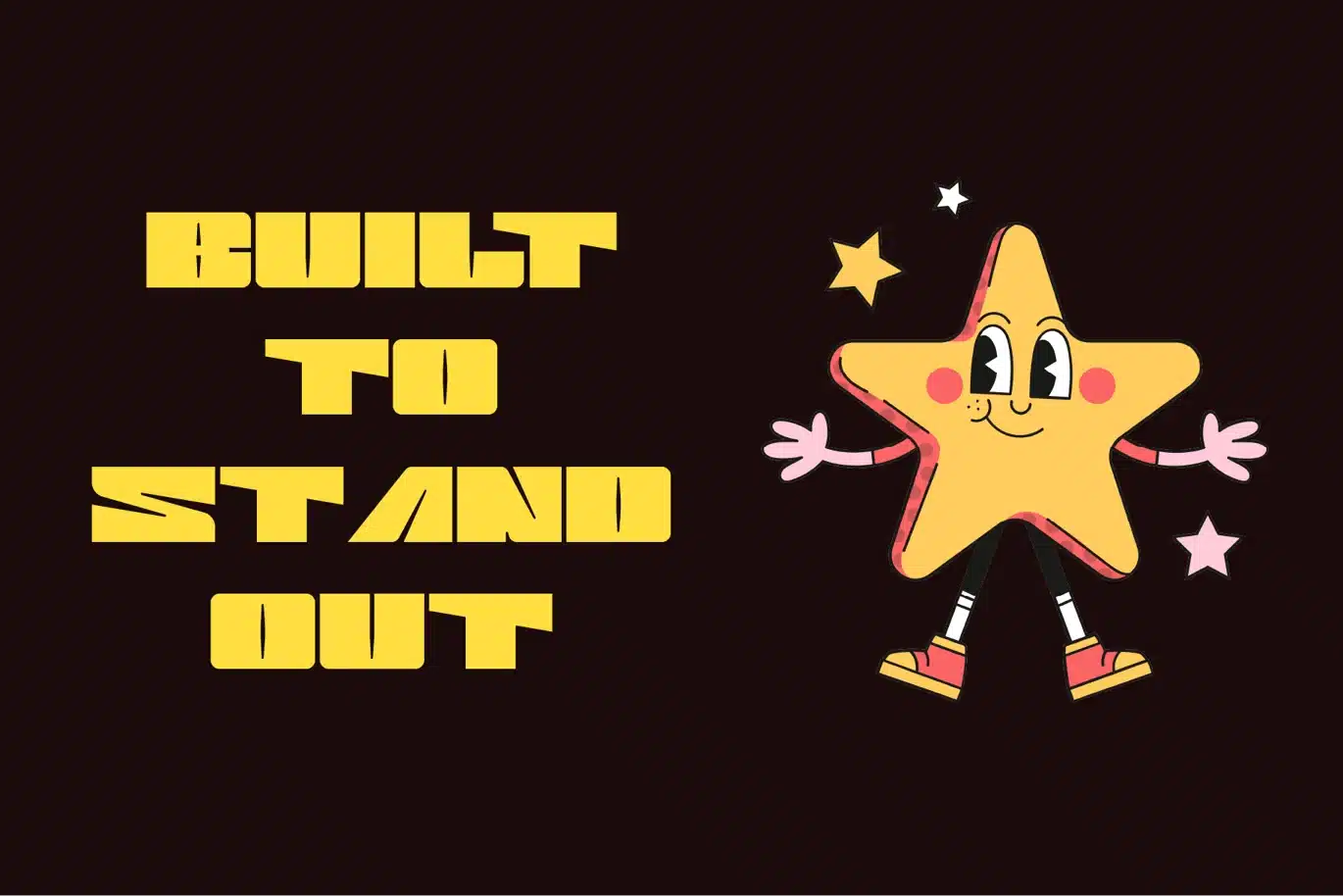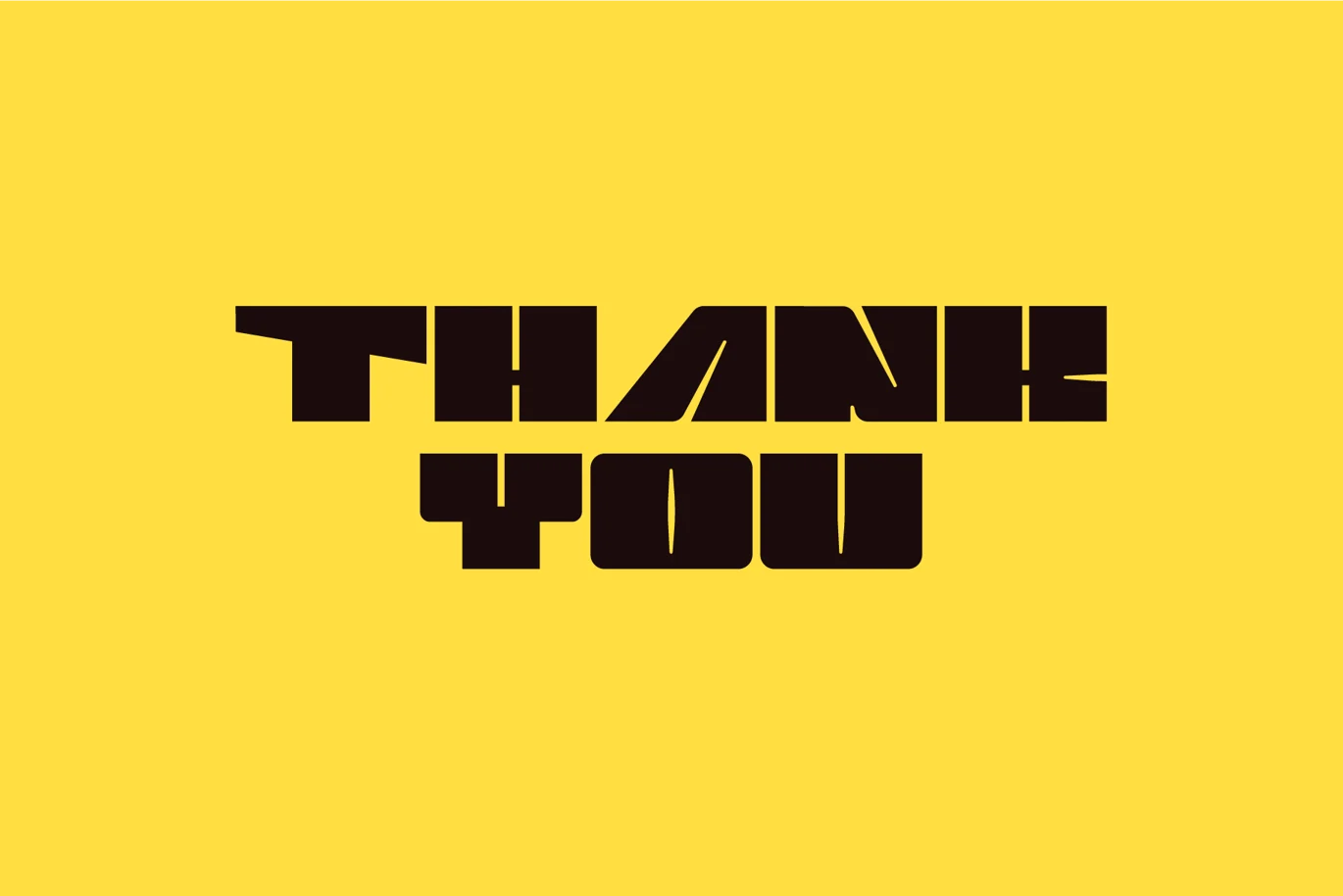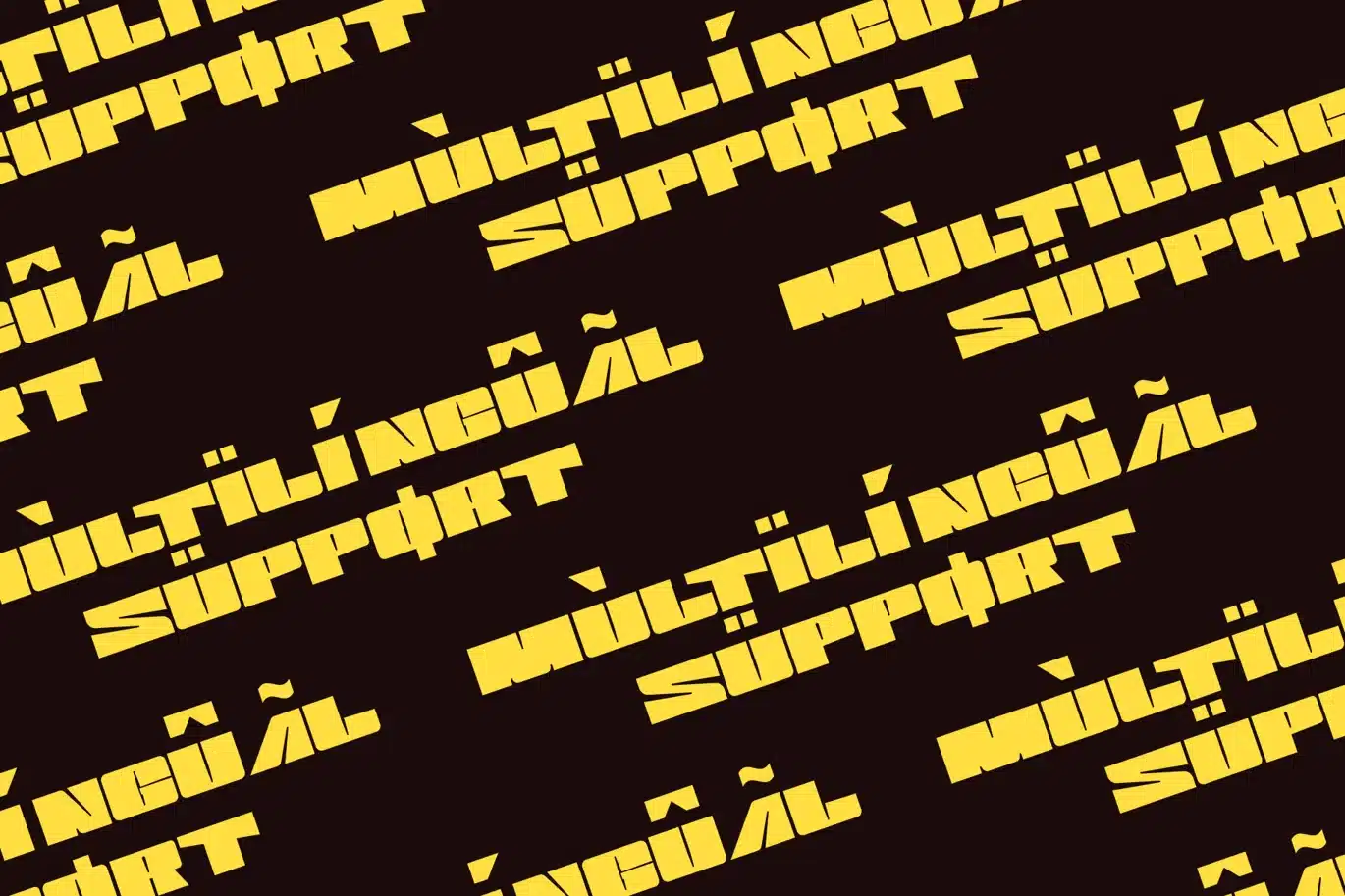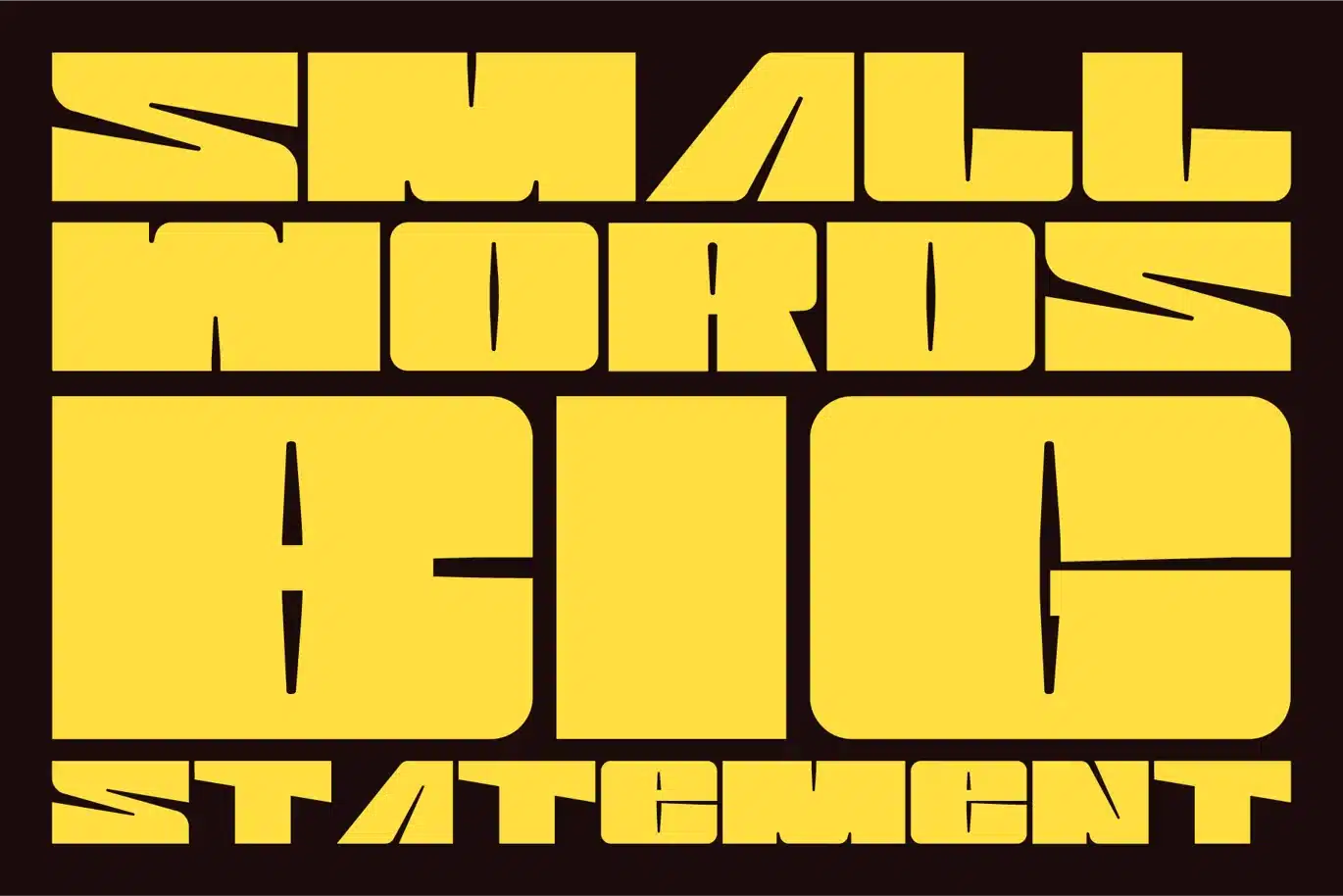
Yeltra – Bold Display Font
Yeltra is a bold display font built for strength and legibility. Simple, solid, and highly readable, it works perfectly for titles, posters, and digital layouts.